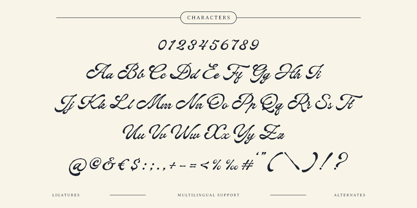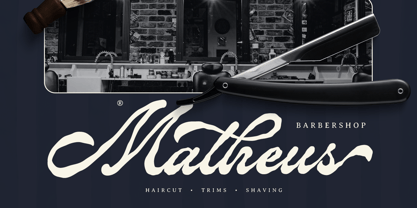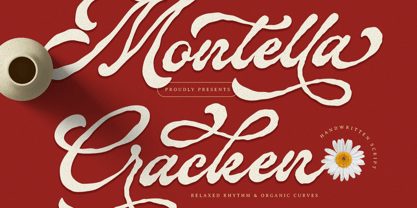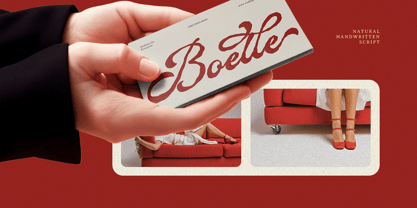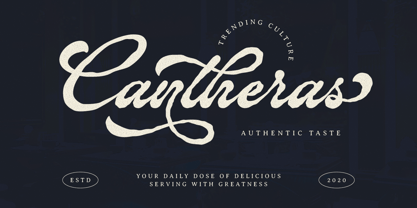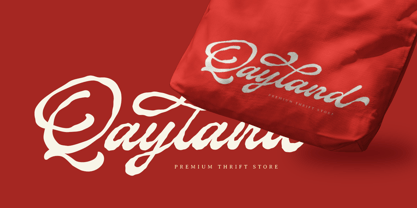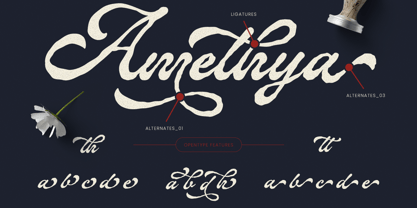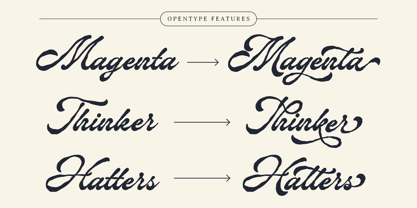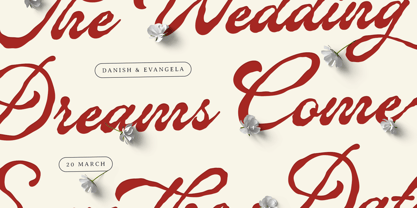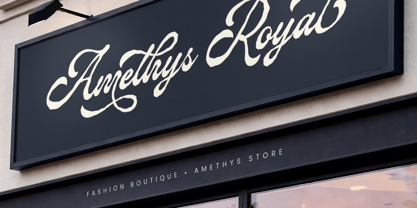
Montella Cracken
The Montella Cracken Font Family was designed by Eep Apringga and published by Namara Creative Studio. Montella Cracken contains 1 styles. More about this family
Montella Cracken is a natural handwritten script font crafted with relaxed rhythm and organic curves — designed to feel like real pen-on-paper lettering. Every stroke carries the subtle imperfections and flowing energy of genuine calligraphy, making it one of the most authentic script typefaces for modern design projects.
Unlike stiff digital scripts, Montella Cracken breathes. Its natural stroke contrast, organic baseline movement, and expressive letterforms bring warmth and personality to any design — from wedding invitations and boutique branding to food packaging and social media content.
• Complete Character Set: Full uppercase, lowercase, numerals, punctuation and symbols.
• Stylistic Alternates: Includes creative variations for letters, help you mix and match for the perfect look.
• Extensive Ligatures and Multilingual Support: Packed with unique ligatures. also ready for global characters and international glyphs.
• Natural Handwritten Style: with relaxed rhythm, organic stroke variation, and flowing curves that feel effortlessly real.
• Signature-style logos.
• Wedding, boutique, event and cafe stationery.
• Branding, apparel and merchandise (packaging, signage, tote bags & printed goods).
• Editorial titles and blog headers (social media graphics thumbnails).